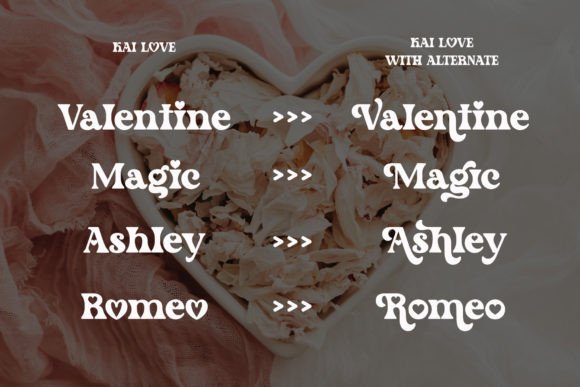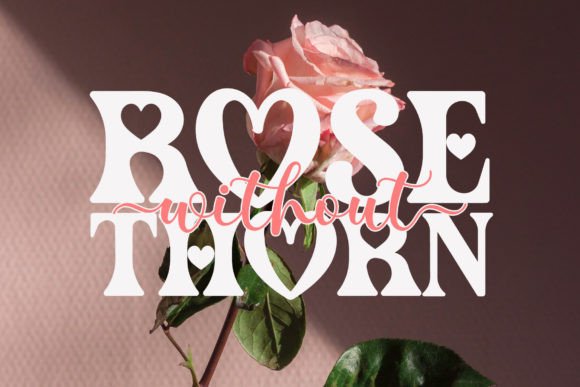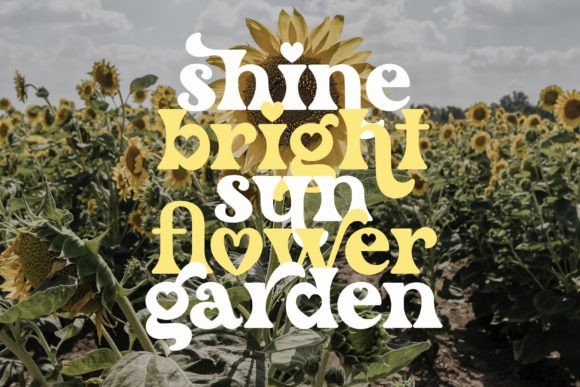
About the Kai Love Font
The Kai Love Font offers a perfect balance of form and function for your design needs. Kai Love is a modern serif font. This font is a special font to celebrate love and affection because it has a heart accent.
Kai Love has modern, vintage, and lovely feels.
It is a beautiful and elegant font that will deliver love and vintage vibes to your design. It can be used for a wide range of designs, such as Valentine’s Day, crafting, stickers, t-shirts, sublimation, quotes, and many more.
Kai Love’s elegant, yet slightly playful personality makes it ideal for branding projects focused on romantic themes, wedding invitations, or products emphasizing handcrafted quality. It works exceptionally well in headlines, short quotes, and logos, adding a touch of vintage charm. Avoid using it for large blocks of body text; its decorative elements can become visually overwhelming in long paragraphs.
Pairing Kai Love with a clean sans-serif font like Lato or Open Sans for body copy creates a balanced and visually appealing contrast. For a more vintage feel, consider pairing it with a complementary serif like Playfair Display. A script font, used sparingly, could also enhance its romantic feel, but ensure it doesn’t compete visually.
The heart accent is a key feature—use this to guide your design choices, ensuring it remains a focal point and not a distracting element. Consider the size and spacing carefully to maximize its impact.